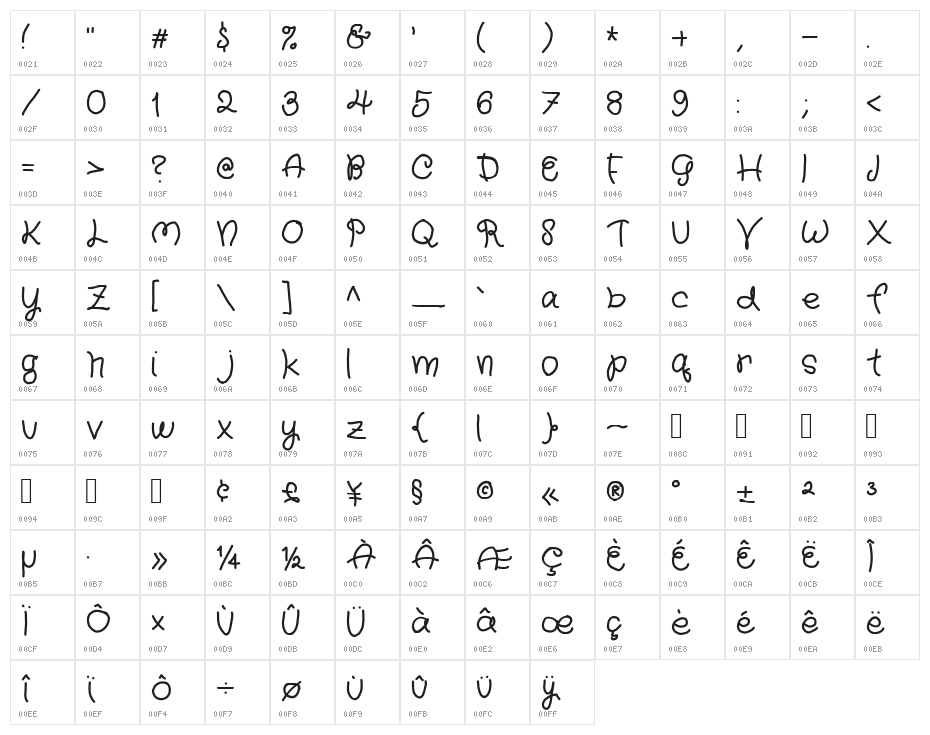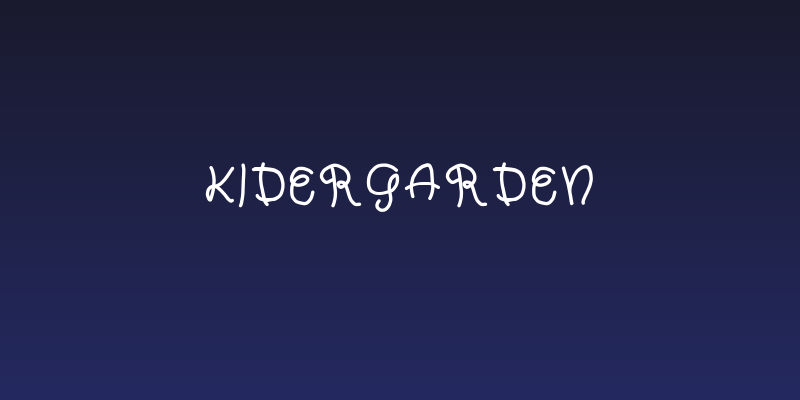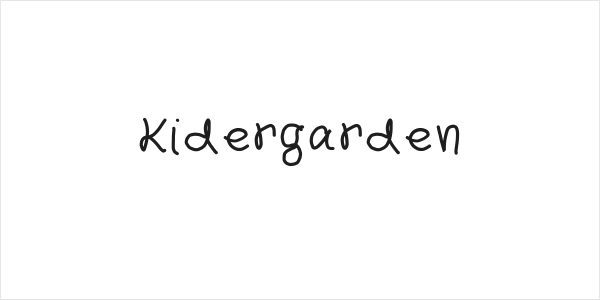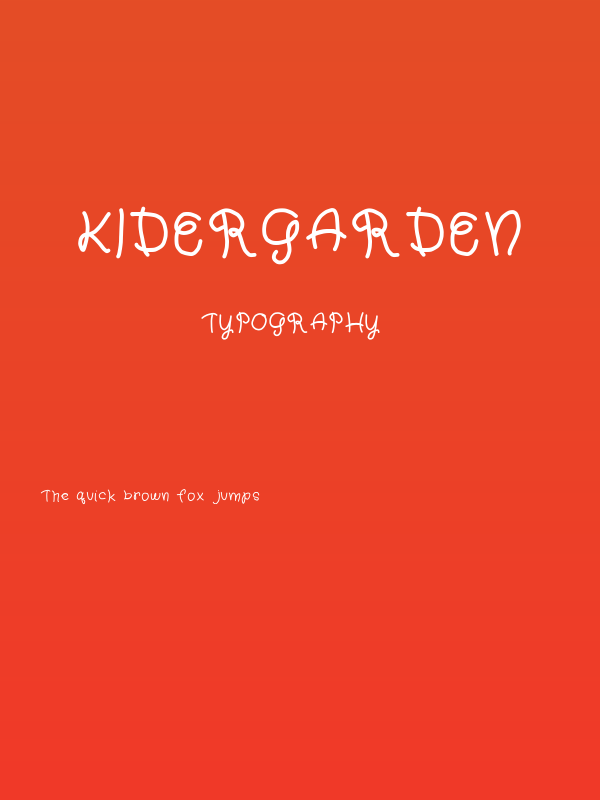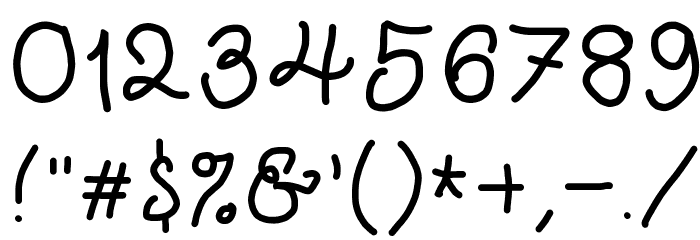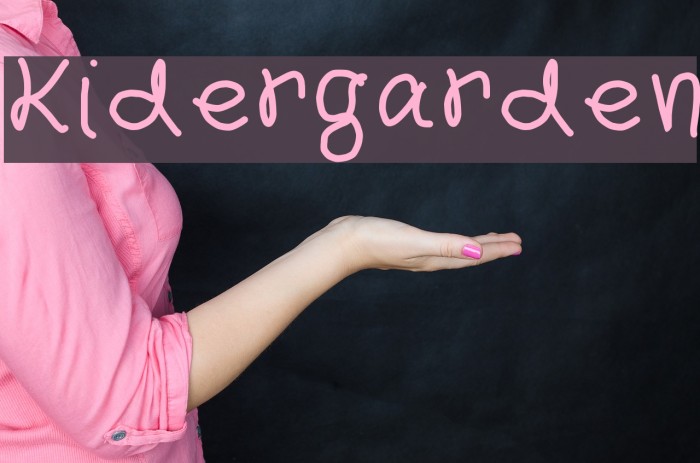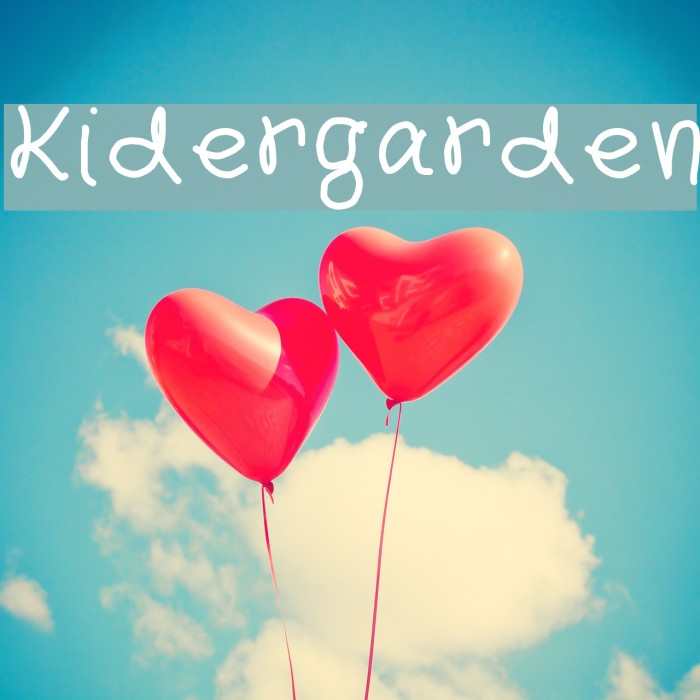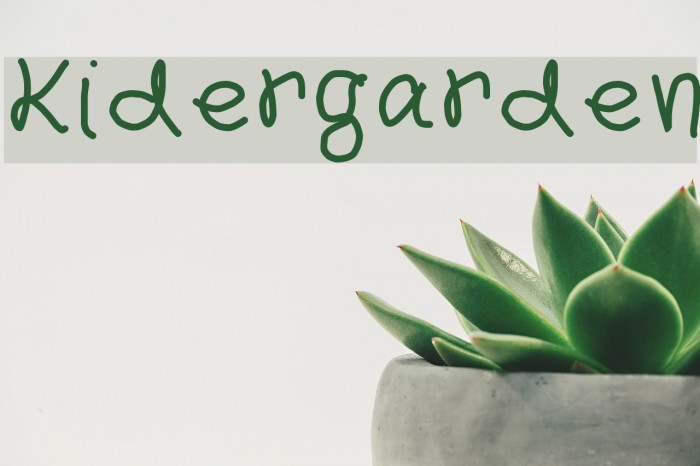
Kidergarden Font
Kidergarden Description
This playful and whimsical font features a handwritten style that mimics the carefree and joyful strokes of a child's writing. Each character is crafted with a sense of spontaneity, showcasing irregular curves and loops that add to its charm. The letters are slightly slanted, giving the impression of movement and energy. The font maintains a consistent stroke width, ensuring readability while preserving its playful nature. It includes a full set of uppercase and lowercase letters, numerals, and a variety of special characters, making it versatile for various design needs.
| Use Case | Headlines, Logos, Children's materials |
| Proposed Projects | Ideal for children's books, educational materials, playful branding, and creative projects that require a touch of whimsy. |